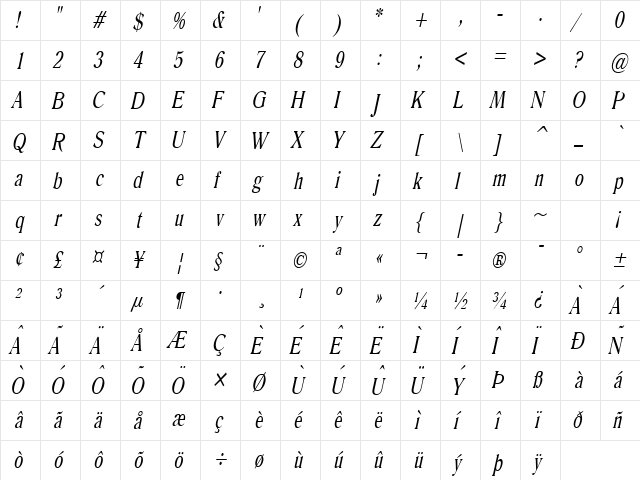
Roomy Thin Italic
Design Context for Roomy Thin Typeface
Roomy Thin is a composed and adaptable typeface that performs quietly and consistently across a wide range of design contexts. The dynamic lean of this cut emphasises speed and emphasis in any layout. The delicate stroke weight brings airiness and refinement to layouts.
Pro Tip: Use Roomy Thin for emphasis, pull quotes, and subheadings where its slanted energy can add rhythm to the layout.